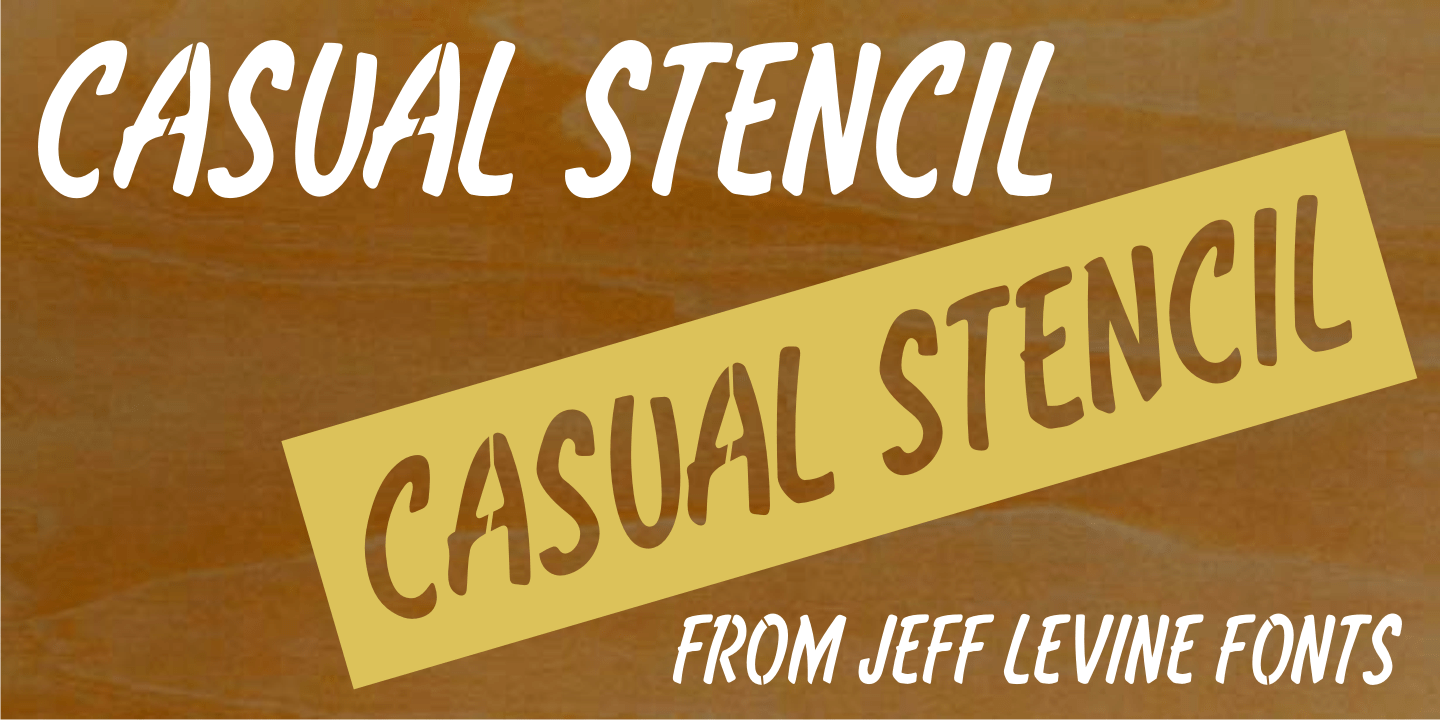
Casual Stencil
Casual Stencil JNL was modeled from a set of stencils used for store display work that are reminiscent of brush style casual lettering made popular by sign painters and show card artists.
Casual Stencil JNL Regular by Jeff Levine Fonts